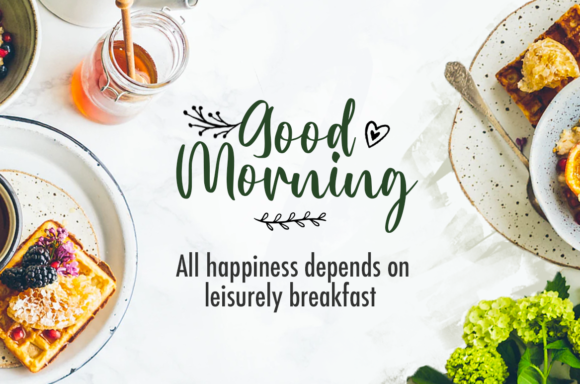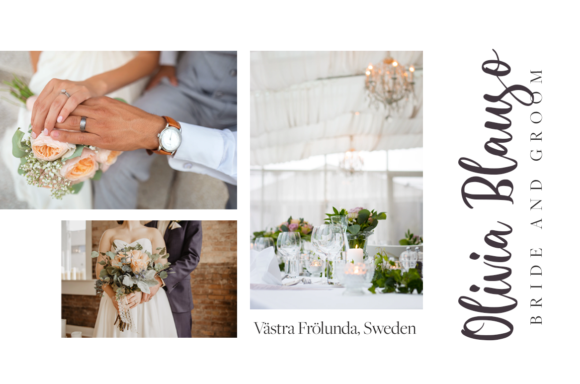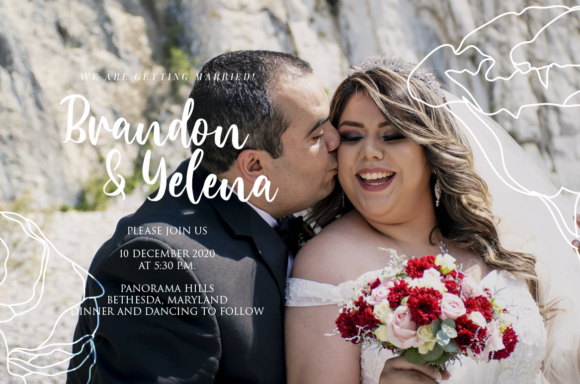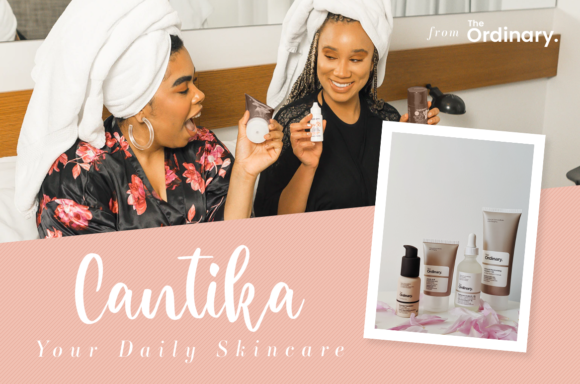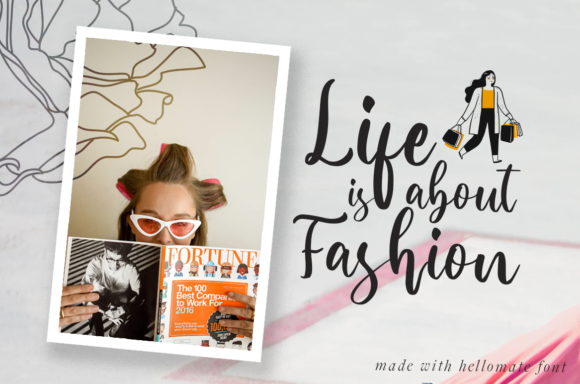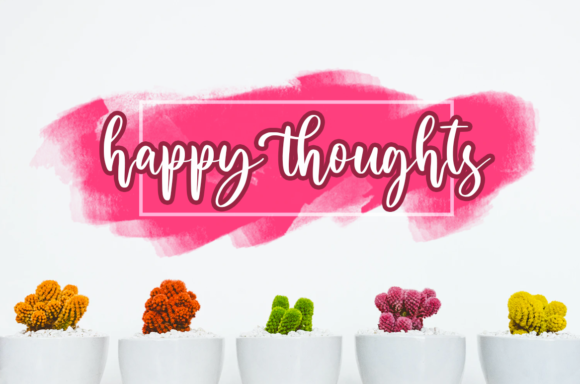
Introduction to Hellomate Font
Have you ever stared at a blank page, waiting for inspiration to strike, only to be met with a sea of blank space? We’ve all been there. But what if I told you that the perfect spark could be just a font away? Enter the Hellomate Font, a charming and whimsical handwritten font that’s sure to bring a smile to your face.
As a designer, you know the importance of having a solid design resource at your disposal. And the Hellomate Font is just that – a high-quality, versatile font that can elevate any creative project from ordinary to extraordinary. With its well-rounded letters and friendly feel, this font is perfect for designs that need a touch of warmth and personality.
Key Features of Hellomate Font
- High-Quality Design – Hellomate Font is a premium design resource ideal for creative projects requiring a unique touch.
- Unique Characteristics – Hellomate Font features a distinctive design that sets it apart from other fonts, making it an excellent choice for designers seeking to add a personal touch to their creative project.
Honest Review: Hellomate Font
I recently stumbled upon the Hellomate Font while searching for a reliable design resource for my current creative project. I must say, I was quite impressed with the quality and versatility of this font.
What works well with the Hellomate Font is its sleek and modern aesthetic, making it perfect for various design applications. I particularly liked the fact that it’s available for free download, which is a big plus for designers on a budget. The font also features a transparent background, allowing for easy customization and blending with other design elements.
The Hellomate Font comes in multiple styles, including regular, bold, and italic, which is a great bonus for designers who need to create visually appealing content.
However, I did notice that the font may not be suitable for projects that require a more traditional or serif font style. ⚠️
Overall, I’m quite pleased with the Hellomate Font and would definitely recommend it to fellow designers. It’s a great addition to any design library and is sure to elevate your creative projects. ✨
Experiment with different font sizes and colors to create a unique look. Use the font in combination with other design elements to add depth and interest to your design. Consider using the font on a transparent background to create a subtle, elegant look.
The Hellomate Font is a versatile design resource that’s perfect for a variety of creative projects, including branding, marketing materials, and digital art. Its high-quality design and transparent background make it easy to use in a range of applications.